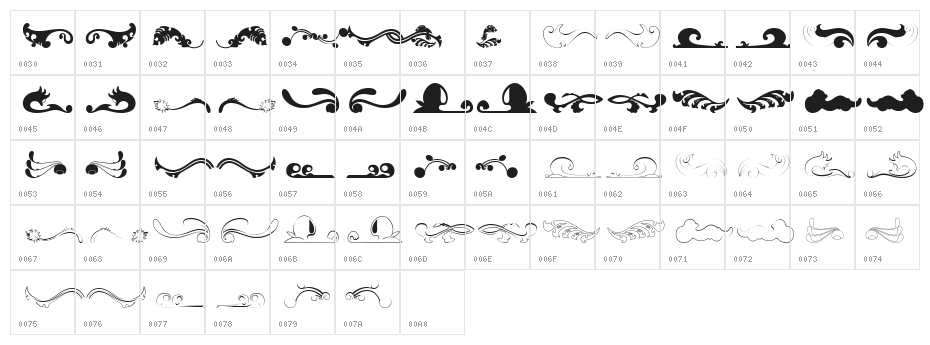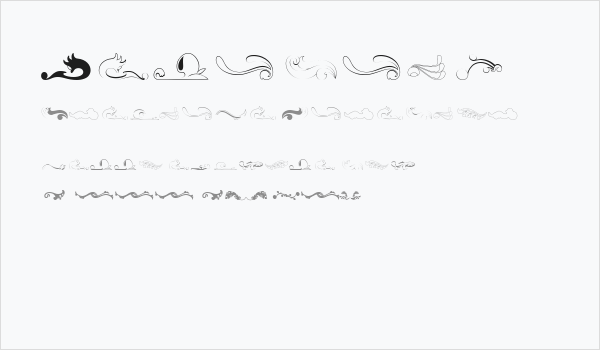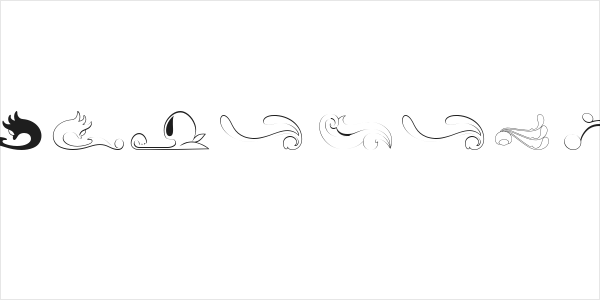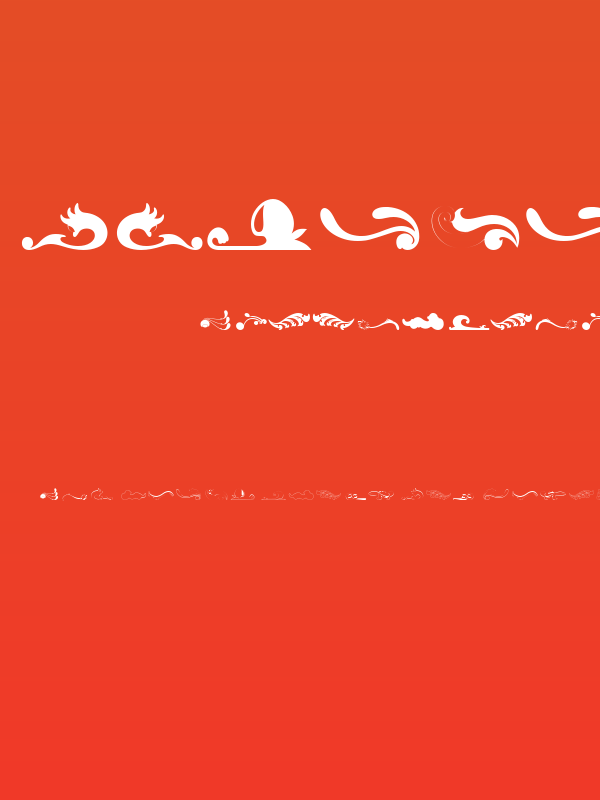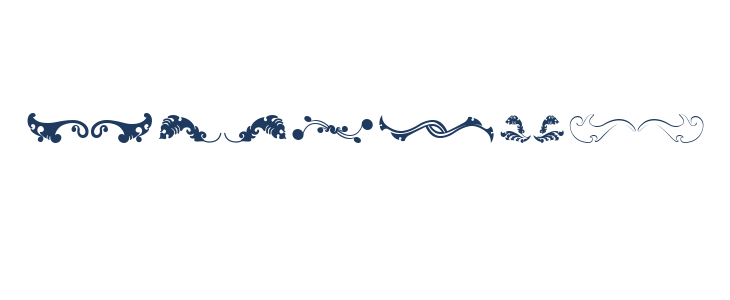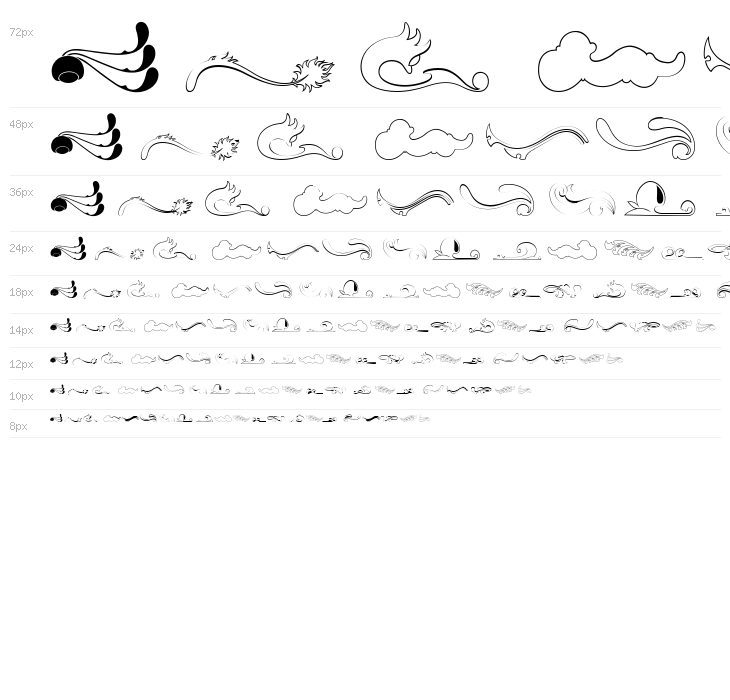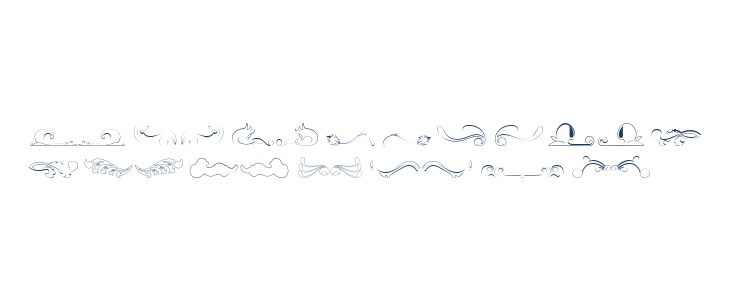
Felicity Font
Felicity Description
A highly decorative and ornate collection of typographic flourishes and borders, featuring intricate swirls, curls, and floral motifs in both solid and outline styles. The elements vary in thickness and complexity, with some appearing bold and filled, while others are delicate and outlined.
| Overall Style | Vintage, Decorative, Elegant |
| Use Case | Borders, Dividers, Decorative accents |
| Proposed Projects | Wedding invitations, certificates, vintage posters, decorative dividers, branding for luxury products. |